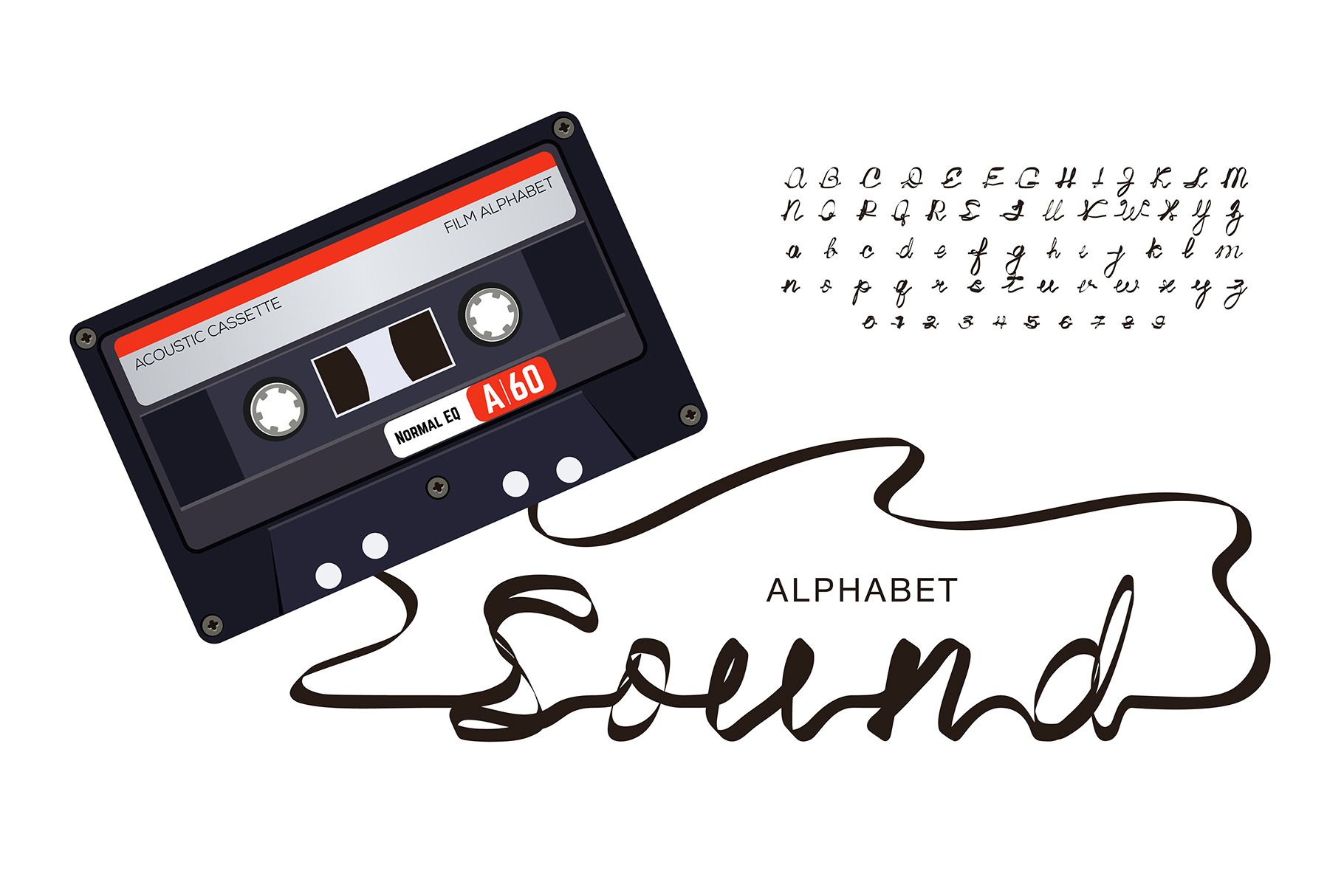
Cassette Tape Retro Font
Cassette Tape Alphabet. Creative Retro Font Made from Magnetic Audio Tape in 80s Style. One-Line Letters and Numbers for Posters, Music Projects, and Nostalgic Designs - EPS (Not a Font!)
- Uppercase letters A - Z
- Lowercase letters A - Z
- Numbers 0 - 9
- Clean, modern, and unique alphabet design